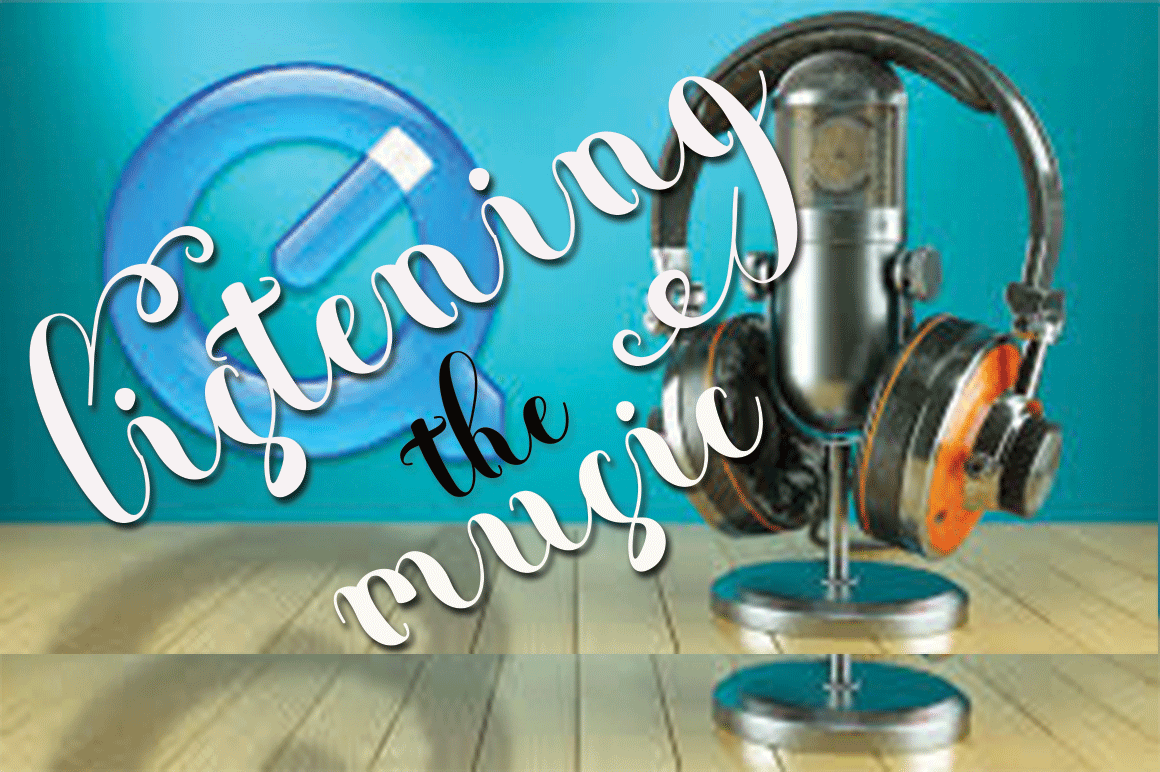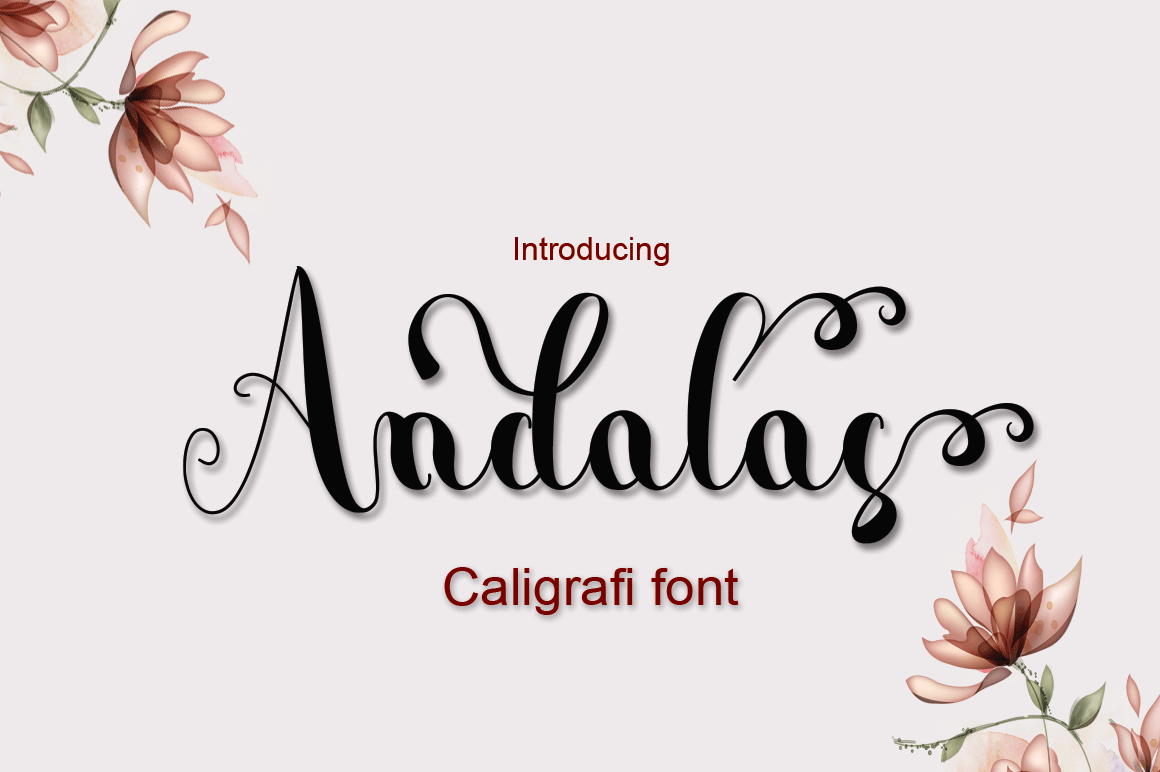
Andalas Script Font
Andalas Modern Calligraphy. This font was designed by handwriting, and it has a modern andunique forms of calligraphy, the writing style is very natural.